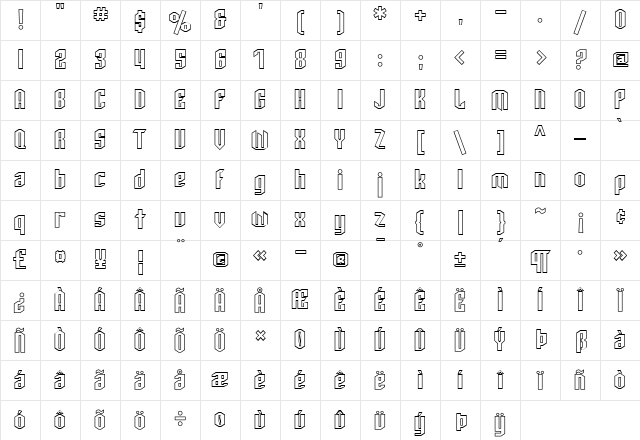
SF Archery Black Outline Regular Free Font
SF Archery Black Outline Regular
Designer: ShyFonts Type Foundry
Design Context for SF Archery Black Outline
SF Archery Black Outline is built around its visual character rather than neutral utility - its distinctive forms are designed to make an impression at display sizes.
Font Pairing: Pair with a clean neutral sans-serif for body copy to let SF Archery Black Outline's character lead without overwhelming the composition.
Pro Tip: Use SF Archery Black Outline exclusively at display sizes - it was designed to be seen, not read at length. Let a neutral companion handle body copy.